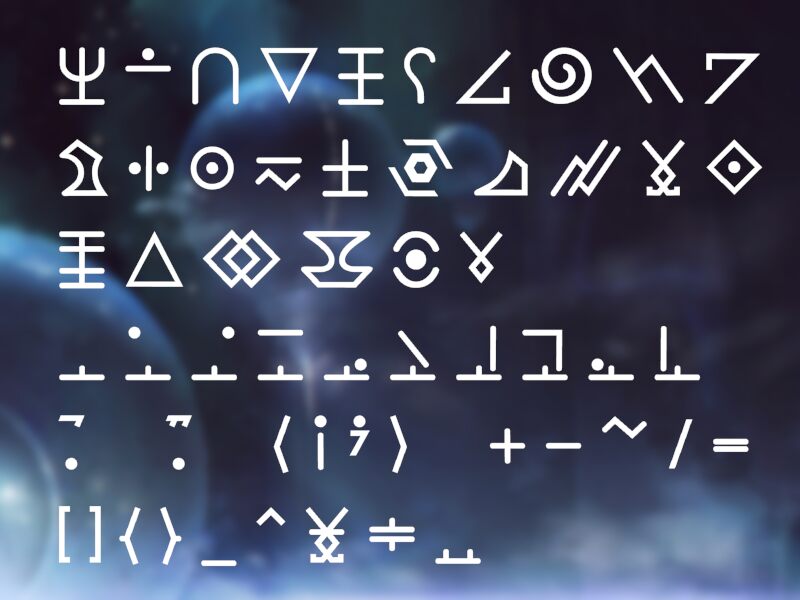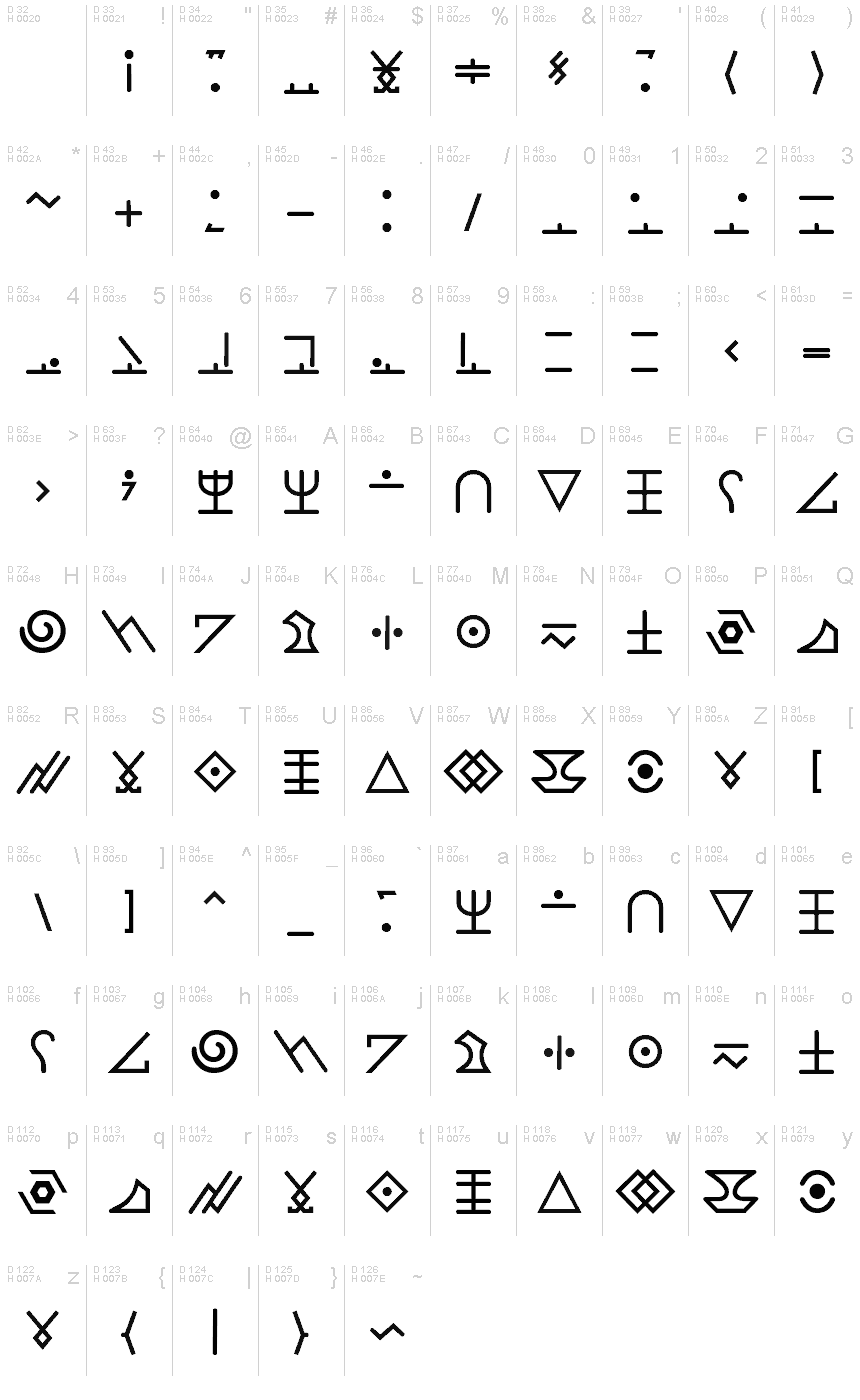
The Calling
The Calling font is based on the alien (code) text which appears in TheFatRat's video for the song "The Calling" (https://youtu.be/KR-eV7fHNbM). As no official version was provided (as of this date) I decided to create it. Several characters (j, q, z and special characters) were not used in the video so I added them, trying to fit the theme of the other letters.